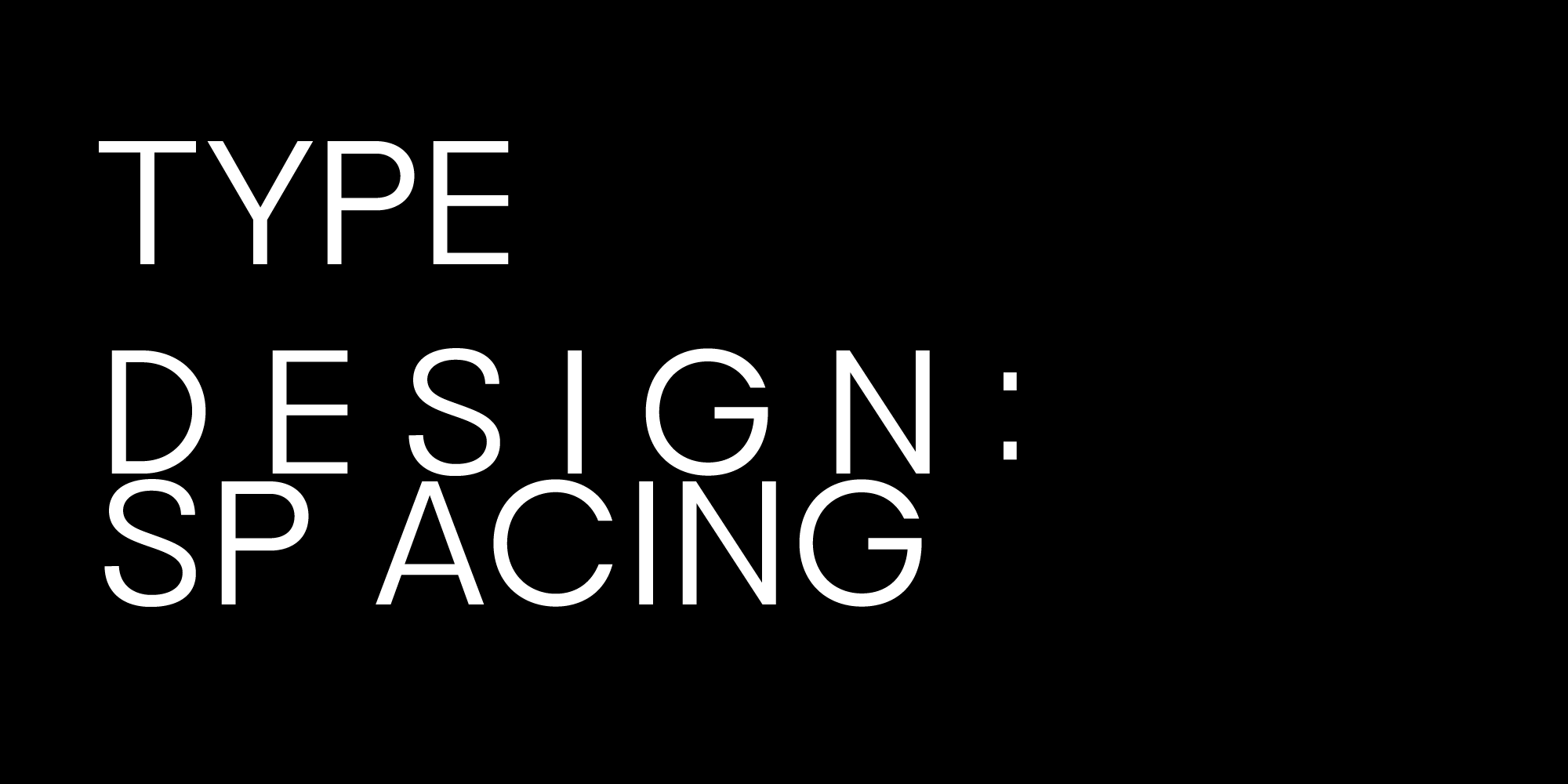
What These Typography Terms Mean
Kerning, tracking, and leading all deal with spacing, but in different ways.
What Is Kerning?
Kerning is the space between two individual letters.
It is adjusted pair by pair, usually where the natural shapes of letters create awkward gaps. A classic example is the letter pair AV. Without kerning, the angled sides can make the space between the letters look too wide.
Good kerning makes the space between letters feel even, even when the actual measurements are not equal.
So when a type designer is done with spacing their font—finding the right amount of space around each letter—they will find the outlier combinations such as AV or AY and add individual kerning to those pairs. A graphic designer may adjust kerning in their layouts because kerning can look a bit off in larger and smaller font sizes.
What Is Tracking?
Tracking is the overall spacing across a word, headline, sentence, or paragraph.
Tracking is done by a designer putting a layout together, not by the actual typeface designer.
Instead of changing the space between two letters, tracking changes the spacing across a larger piece of text. Increase tracking and the letters spread out. Reduce tracking and the letters sit closer together.
Tracking has a strong effect on tone. Wide tracking can feel calm and deliberate. Tight tracking can make a headline feel compact and direct.
What Is Leading?
Leading is the vertical space between lines of text.
It controls how close one line sits to the next. Tight leading makes a block of text feel dense. Looser leading gives the text more air and can make longer paragraphs easier to read.
The term comes from traditional typesetting, when strips of lead were placed between lines of metal type.
Kerning vs. Tracking
The easiest difference is scale.
Kerning fixes the space between specific letter pairs. Tracking changes the spacing across a larger section of text.
If one pair of letters looks wrong, adjust the kerning. If the whole word or headline feels too tight or too open, adjust the tracking.
Leading vs. Tracking
Tracking controls horizontal space. Leading controls vertical space.
Both affect readability. A paragraph with tight tracking and tight leading can feel crowded very quickly. Wider tracking or more generous leading can make the same text feel calmer, but too much of either can make it fall apart.
One More Typography Term: Line Length
Line length is the width of a text block, usually measured by how many characters fit on one line.
If a line is too long, the eye has to travel too far before returning to the next line. If a line is too short, the reading rhythm becomes choppy.
Line length works closely with leading. Longer lines usually need more leading. Shorter lines can often handle tighter leading.
Why Spacing Matters
Spacing changes how a font feels.
The same typeface can look expensive, casual, crowded, quiet, editorial, or commercial depending on how it is spaced. This is why font choice is only part of typography. The setting matters just as much.
Quick Guide
If two letters look awkward, check the kerning.
If a whole word feels too tight or too loose, adjust the tracking.
If a paragraph feels hard to read, check the leading.
If the reading rhythm feels off, look at the line length.
Common Mistakes
One common mistake is adding too much tracking to lowercase text. Lowercase letters are built to sit closer together, so wide tracking can make words harder to read.
Another mistake is using tight leading in long paragraphs. It may look stylish at first, but it often becomes tiring to read.
All caps can handle more tracking than lowercase. This is why spaced-out uppercase often works well in logos, packaging, and editorial headlines.
How to Use Kerning, Tracking, and Leading in Design
For logos, start with the font, then refine the kerning. Logos are usually short enough that small spacing changes make a large difference.
For headlines, adjust tracking first. A headline can become more elegant, louder, quieter, or more compact with only a small spacing change.
For body text, focus on leading and line length. The goal is not to make every paragraph look designed. The goal is to make it easy to keep reading.